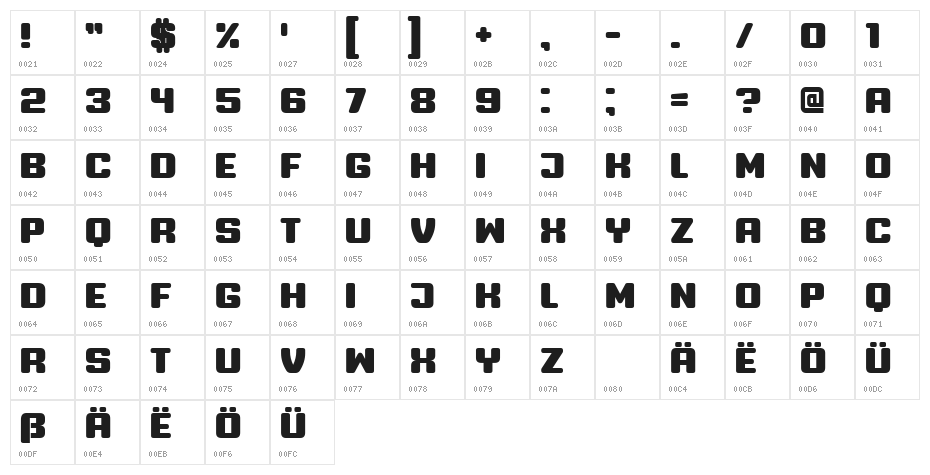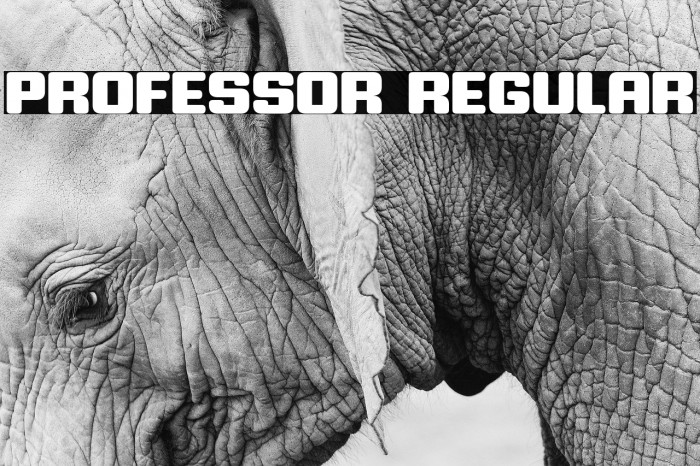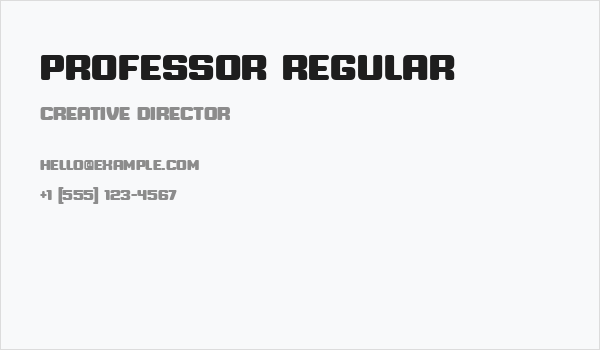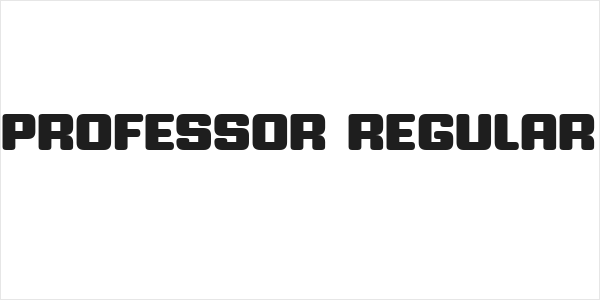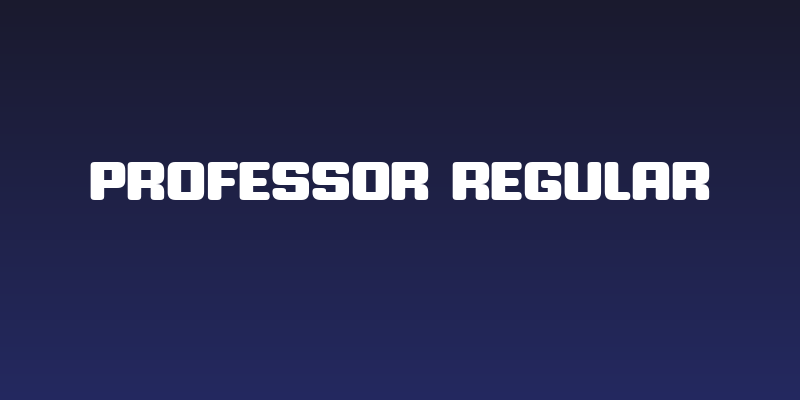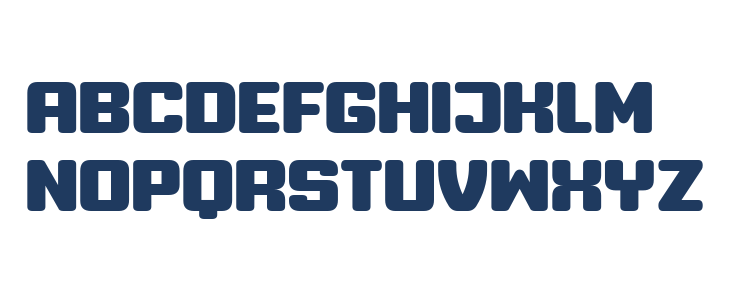
Professor Regular Font
Professor Regular Description
This font features a bold, geometric style with rounded edges, giving it a modern and approachable appearance. The characters are uniformly thick, creating a consistent and cohesive look across both uppercase and lowercase letters. The numbers and special characters maintain this boldness, ensuring readability and impact. The overall design is clean and straightforward, making it suitable for a variety of uses where clarity and a contemporary feel are desired.